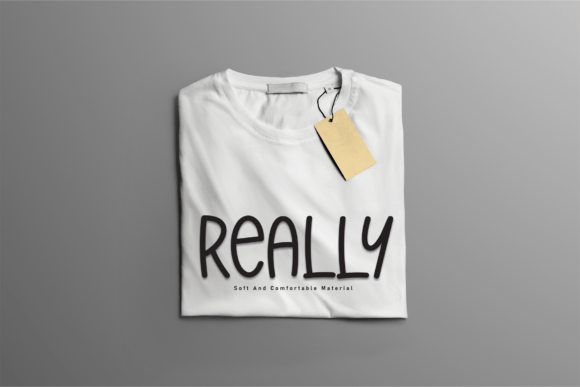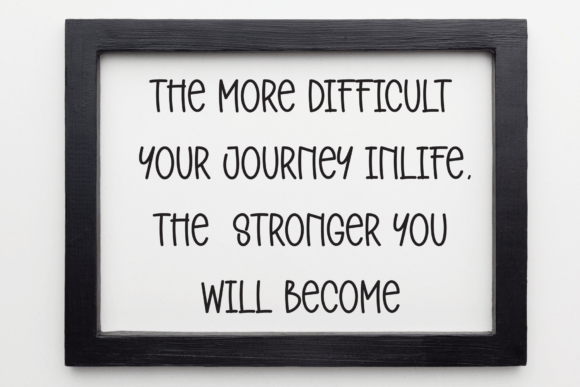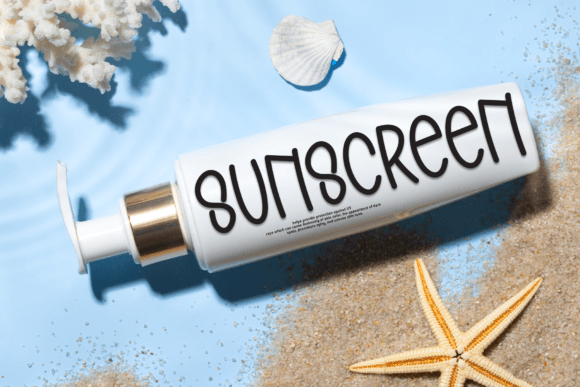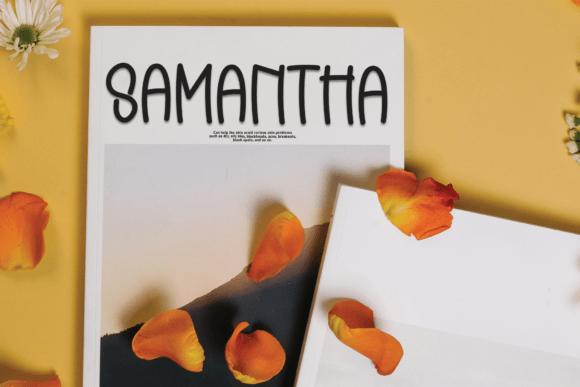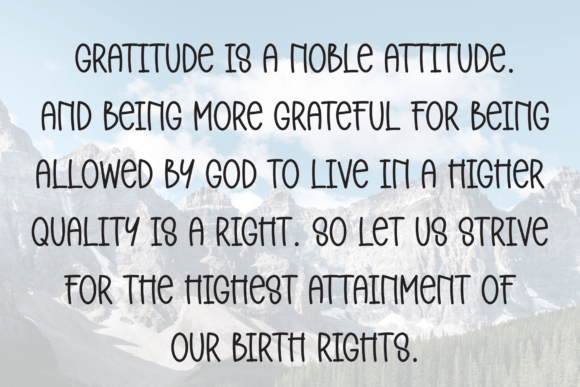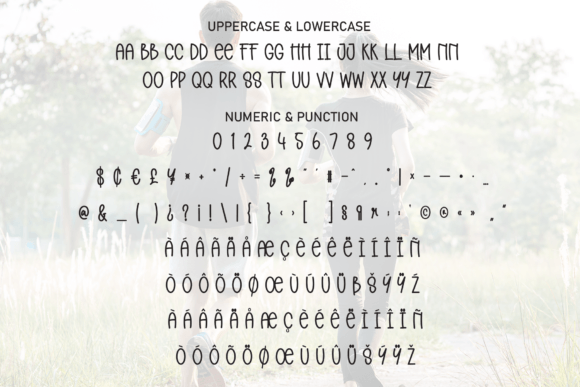
Introduction to Running Around Font
Have you ever been in the midst of a creative project, feeling stuck and unsure of how to bring your vision to life? That’s when I found myself in a similar situation, searching for the perfect font to give my design a playful twist. And then, I stumbled upon the Running Around Font – a casual handwritten font that exudes a carefree and approachable vibe, making it a valuable addition to any design resource.
With its bold, high-quality letterforms and transparent background, the Running Around Font effortlessly captures a sense of fun and spontaneity, elevating any creative project to the next level. As a free download, it’s an excellent resource for designers looking to add a personal touch to their work without breaking the bank.
Whether you’re working on a poster, branding, or any other design project, the Running Around Font is sure to bring a smile to your face and inspire your creativity.
Key Features of Running Around Font
- Unique, hand-drawn design with a playful and energetic feel
Honest Review: Running Around Font
I recently stumbled upon the Running Around Font, a free download that has caught my attention. As a designer, I’m always on the lookout for high-quality design resources that can elevate my creative projects.
What works well about the Running Around Font is its versatility. The font is available in multiple styles, making it perfect for various design needs. The transparent background option is also a plus, allowing me to easily integrate it with my designs.
- ✨ Multiple font styles to choose from
- ✨ Transparent background option
- ✨ High-quality design
However, there are some limitations to consider. The font may not be suitable for all design projects, particularly those requiring a more formal tone. Additionally, the font’s design may not be as polished as some of the paid alternatives.
- ⚠️ May not be suitable for formal designs
- ⚠️ Design may not be as polished as paid alternatives
Overall, the Running Around Font is a solid addition to any designer’s toolkit. While it may have its limitations, its versatility and high-quality design make it a valuable resource for creative projects.
Tips for Getting the Most Out of the Running Around Font
To get the most out of the Running Around Font, experiment with different font sizes, colors, and styles to create unique and eye-catching designs. You can also combine the font with other design elements to create a cohesive look.
The Running Around Font is perfect for creative projects such as invitations, flyers, posters, and social media graphics. Its unique style makes it ideal for capturing attention and conveying a message.